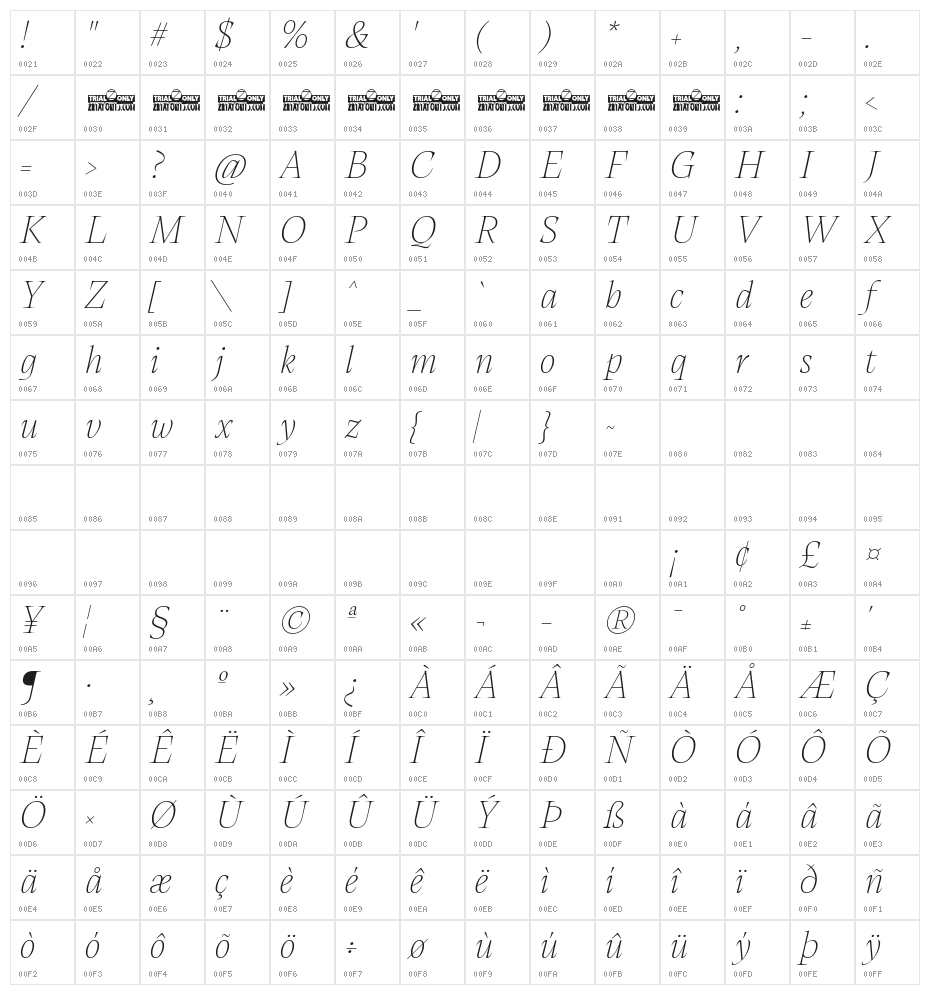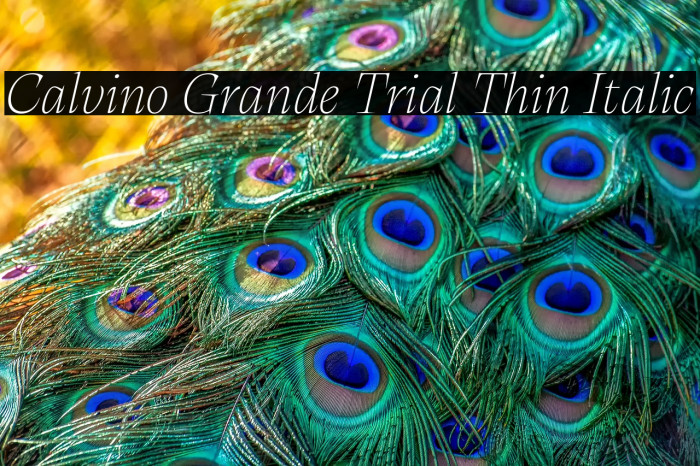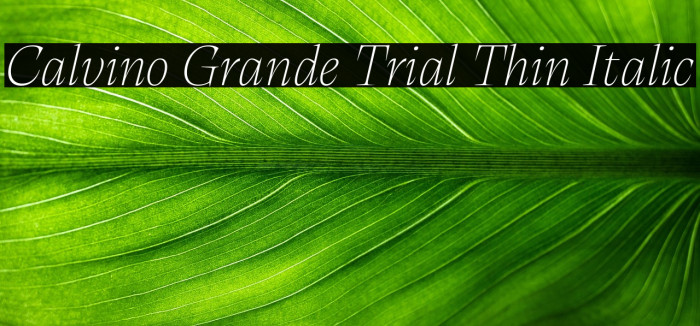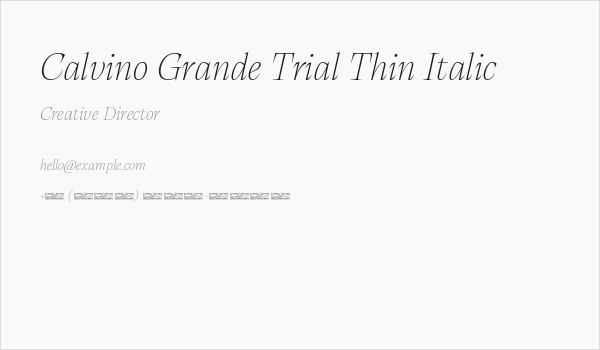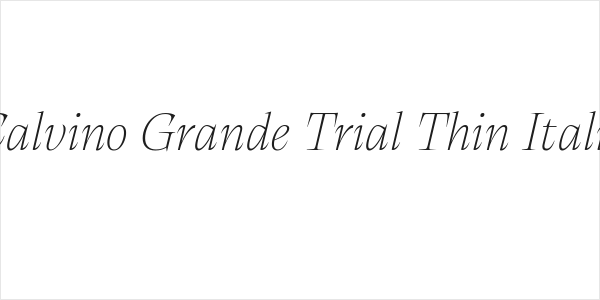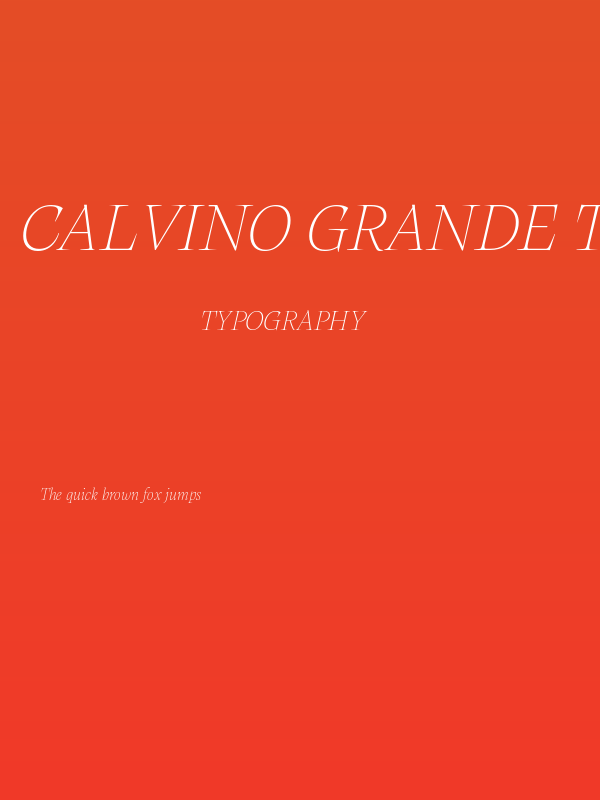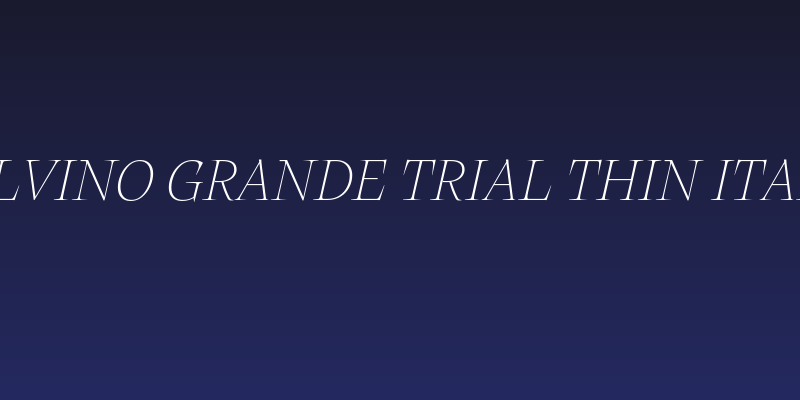
Calvino Grande Trial Thin Italic Font
Calvino Grande Trial Thin Italic Description
This elegant font features a refined and sophisticated design, characterized by its thin, italicized strokes. The letters exhibit a graceful slant, adding a sense of motion and fluidity. The serif elements are subtle, providing a classic touch without overwhelming the overall modern aesthetic. The font maintains a consistent stroke width, contributing to its sleek and polished appearance. Its delicate nature makes it ideal for projects that require a touch of elegance and sophistication, such as wedding invitations, high-end branding, or editorial design.
| Proposed Projects | Ideal for wedding invitations, luxury branding, and editorial design. |